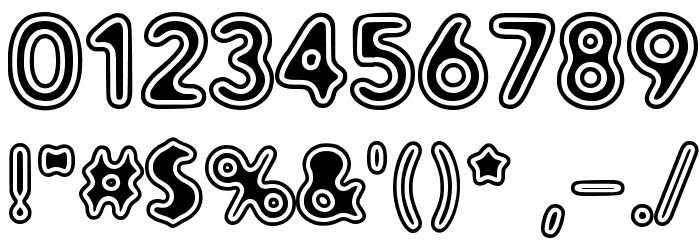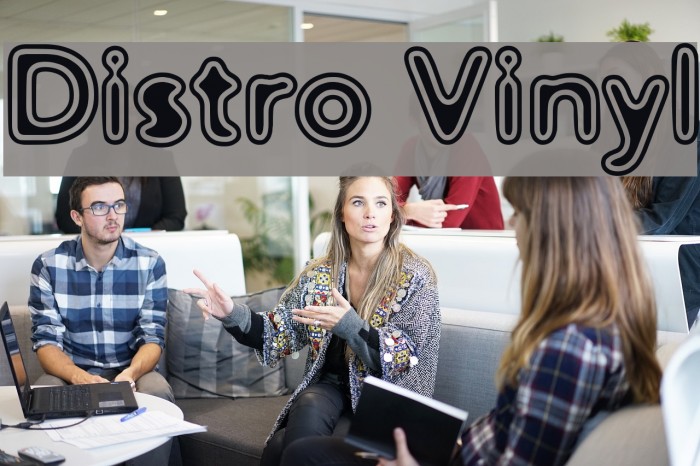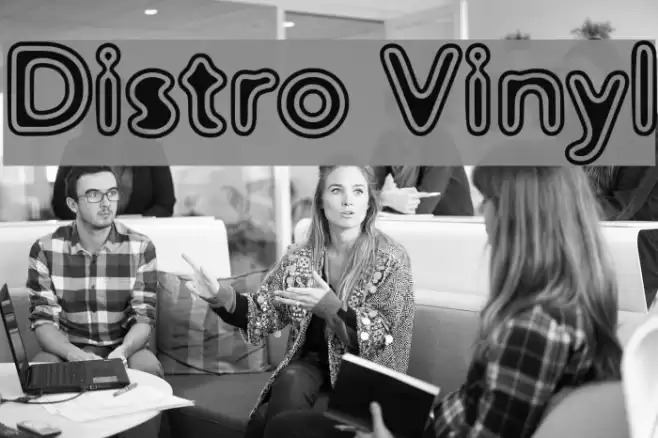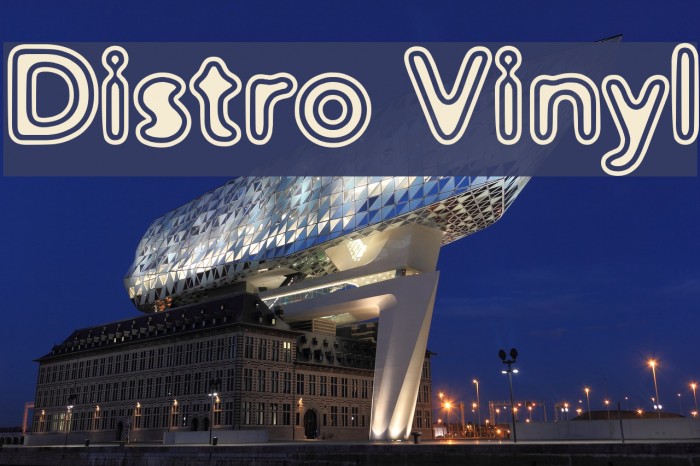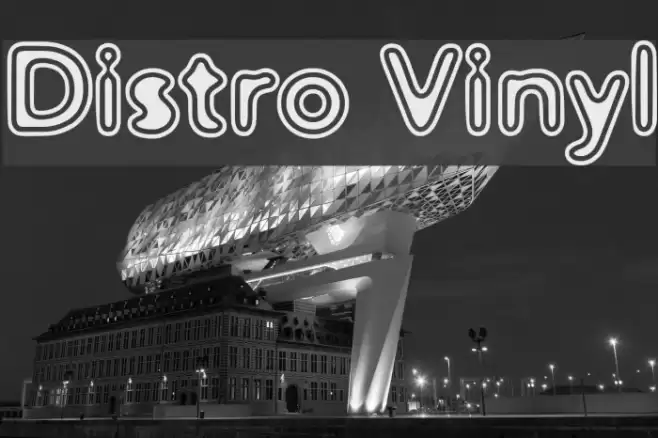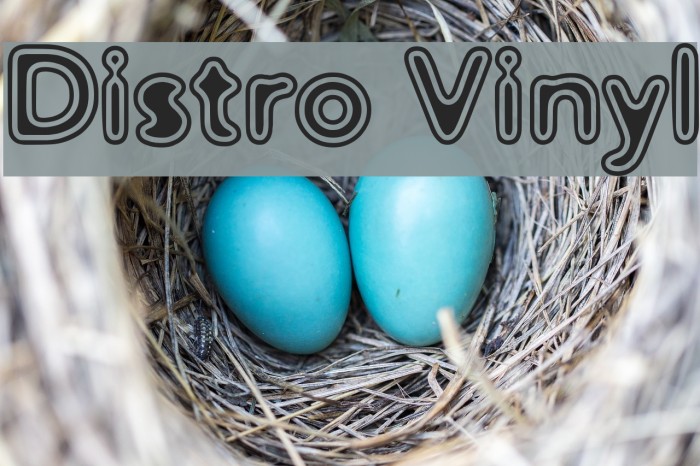
Distro Vinyl Font
Distro Vinyl Description
This font features a bold, playful design with a distinctive outline style that gives each character a three-dimensional appearance. The letters are rounded and have a consistent thickness, creating a harmonious and cohesive look. The uppercase and lowercase letters maintain a uniform style, while the numerals and special characters complement the overall aesthetic. This font's unique outline effect makes it stand out, adding a touch of creativity and fun to any design project.
| Overall Style | Playful, Modern |
| Proposed Projects | Ideal for posters, album covers, children's books, and any project needing a fun, eye-catching typeface. |